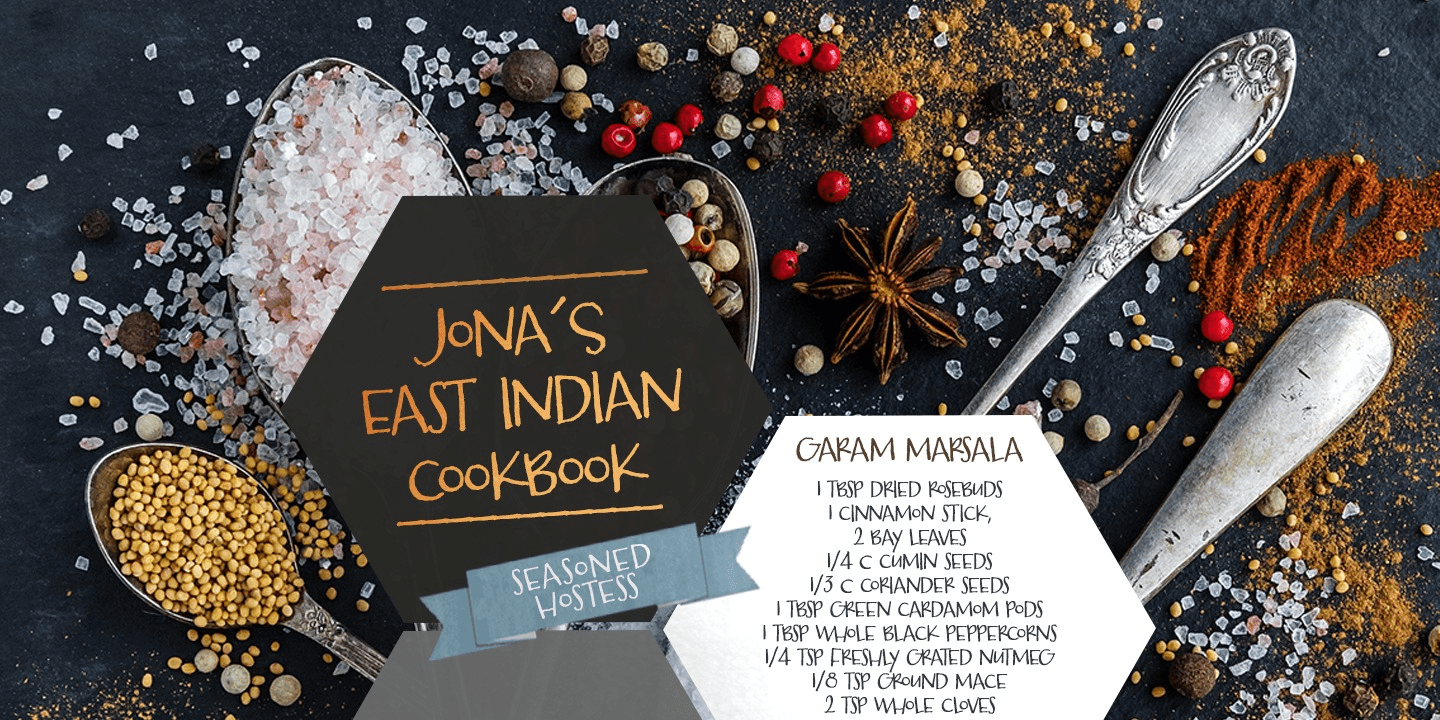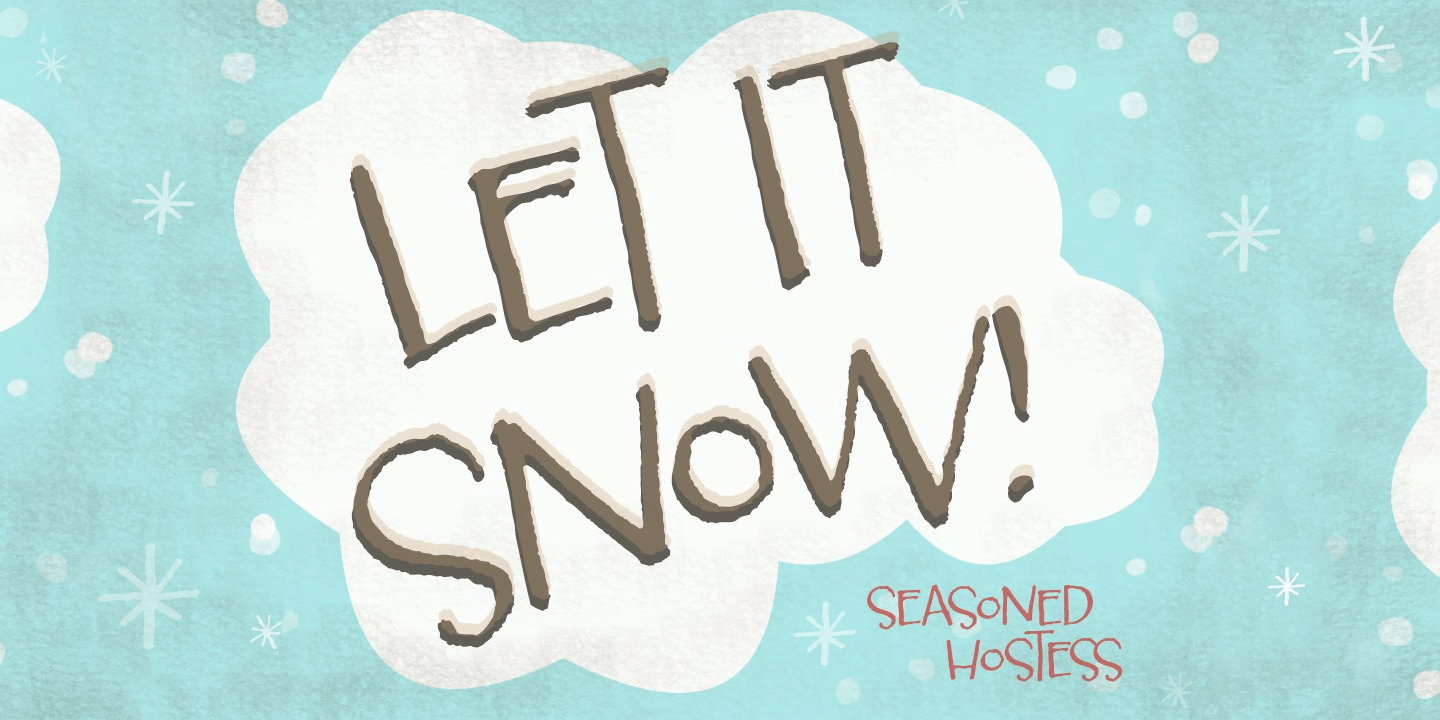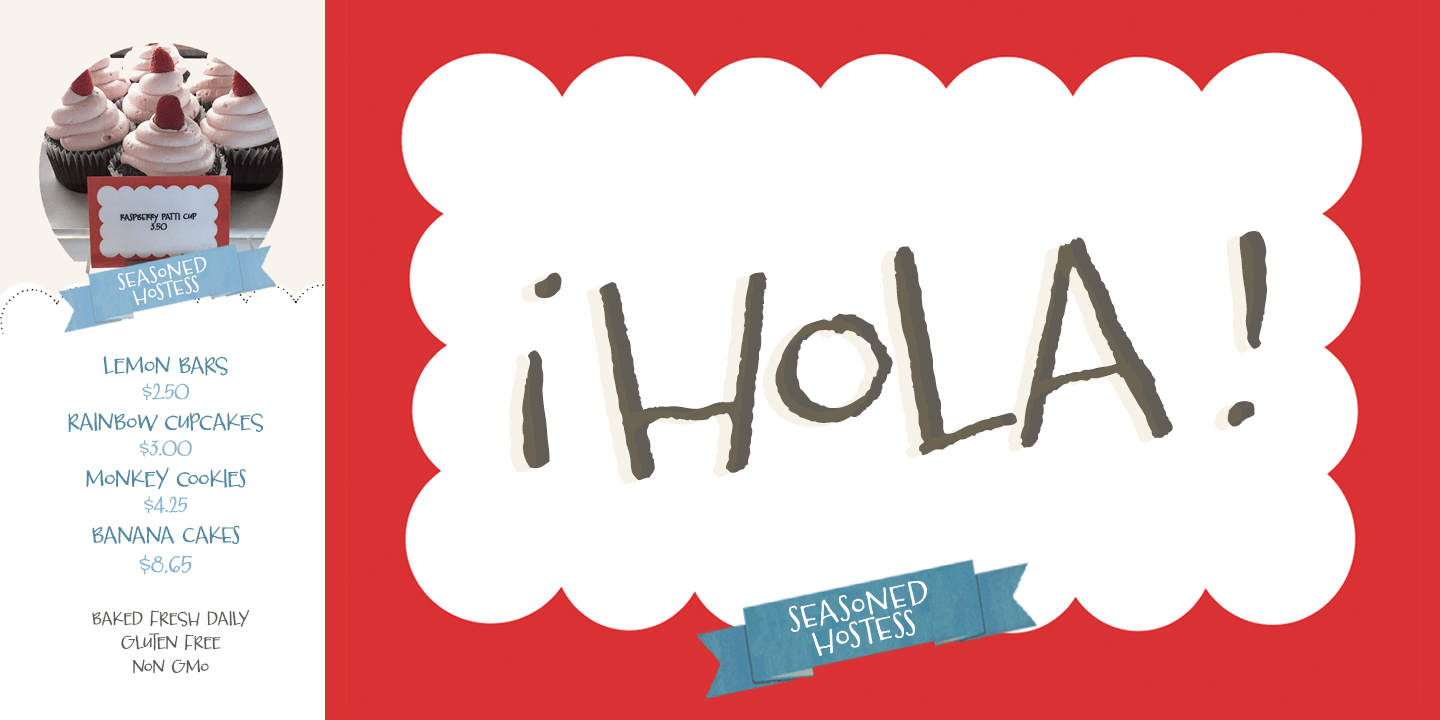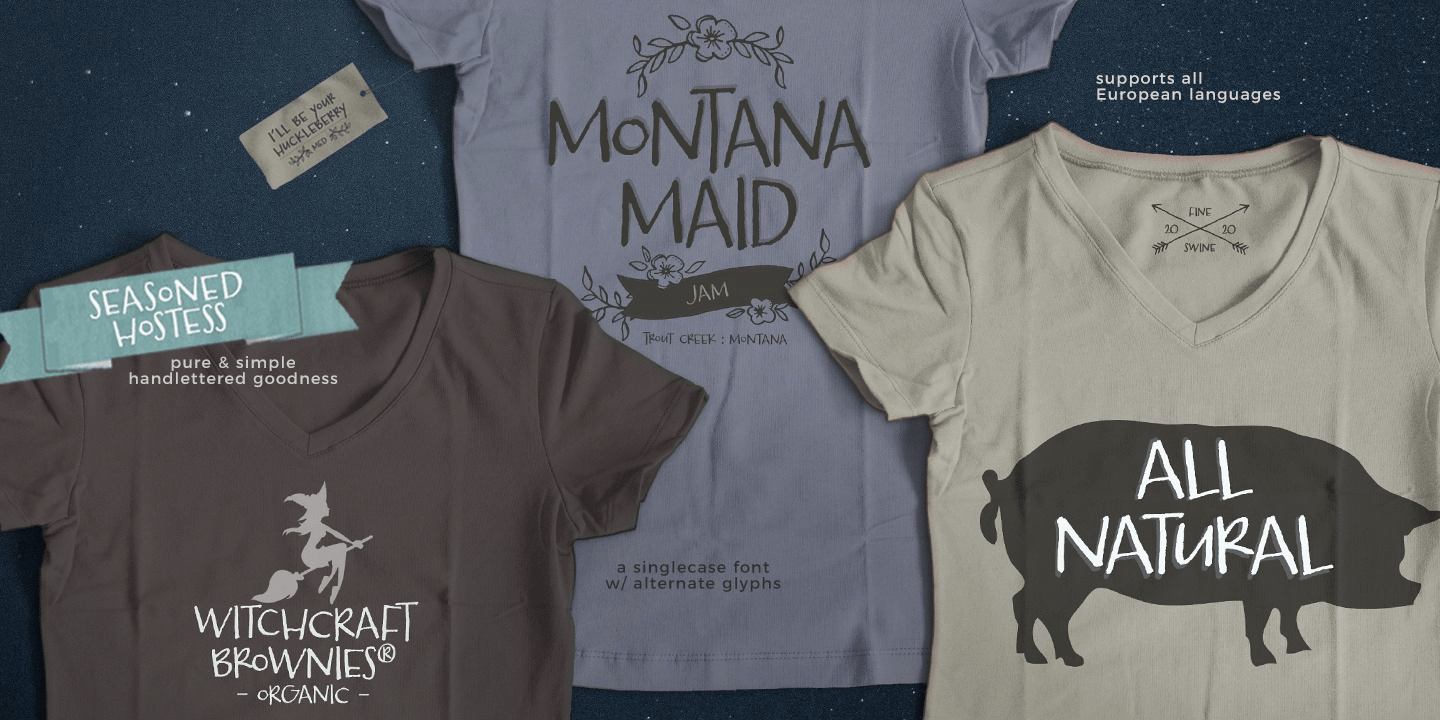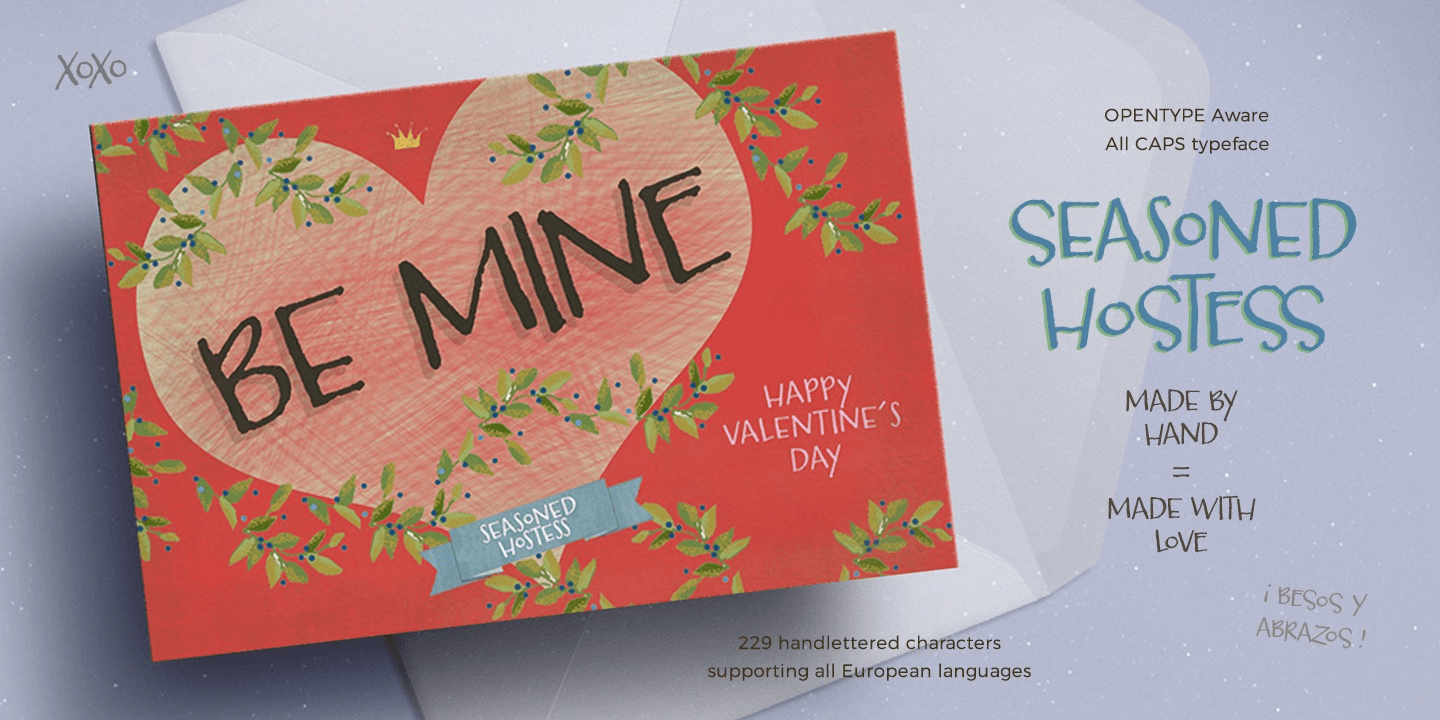
Seasoned Hostess
About Seasoned Hostess
Seasoned Hostess is a perfect blend of playful penmanship meets ink lettering! This fun and sophisticated casual script will be certain to make their mouths water!